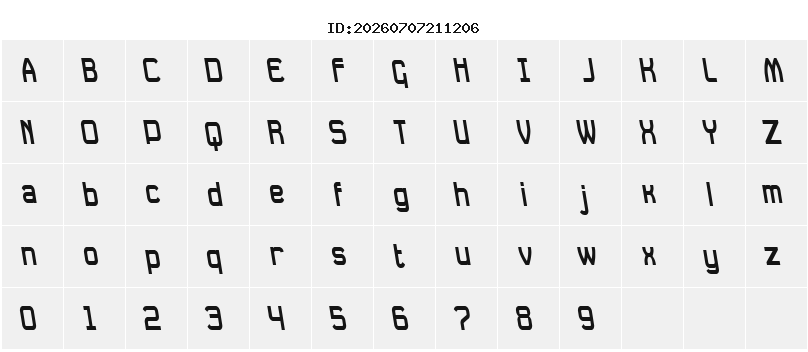
Daville Condensed Rev Slanted Preview
• Font Name: Daville Condensed Rev Slanted
• Full Font Name: Daville Condensed Rev Slanted
• PostScript Name: Daville
About Daville Condensed Rev Slanted.ttf
Daville Condensed Rev Slanted.ttf is a modern, elegant sans-serif font designed for ultimate readability and visual harmony. Perfect for branding, headlines, web design, and print materials.